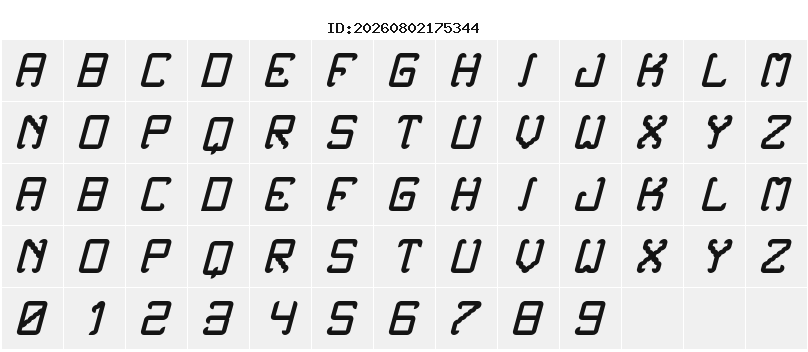
• Font Name: Noxtrey Auf tfb bold
• Font Style: Italique
• Full Font Name: Noxtrey Auf tfb bold Italic
About Noxtrey Auf tfb bold.ttf
Noxtrey Auf tfb bold.ttf is a modern, elegant sans-serif font designed for ultimate readability and visual harmony. Perfect for branding, headlines, web design, and print materials.